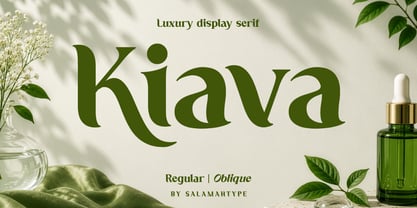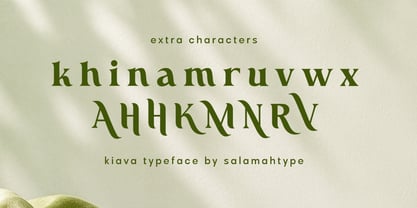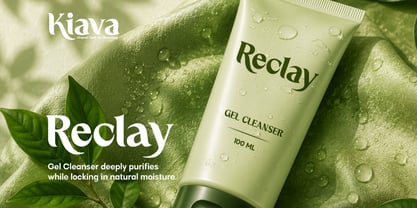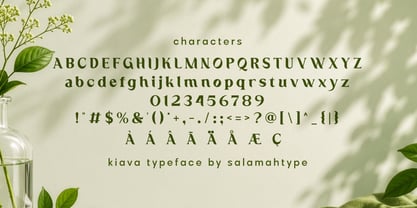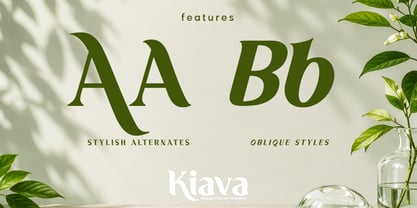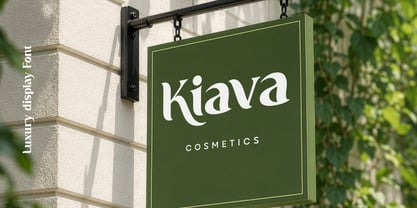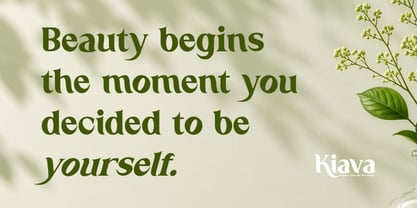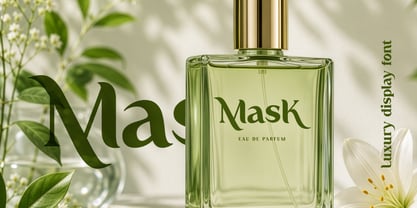
Kiava
par Salamahtype
La famille de polices Kiava a été conçue par Aswangga Sadike et publiée par Salamahtype. Kiava contient 2 styles et options de package familial. En savoir plus sur cette famille
Kiava is a luxury display serif font characterized by its elegant curves and stylish details, crafted to elevate your projects with a modern and sophisticated appearance. This font is perfect for a variety of applications, including logos, beauty branding, perfume packaging, fashion editorials, wedding invitations, and social media content. With both Regular and Oblique styles, Kiava features exquisite ligatures and comprehensive multilingual support, offering a soft yet classy aesthetic that effortlessly stands out. It is an ideal choice for designers aiming to create elegant and memorable branding. Kiava transcends being just a font; it serves as a visual statement of elegance and sophistication.
Concepteurs: Aswangga Sadike
Fonderie: Salamahtype